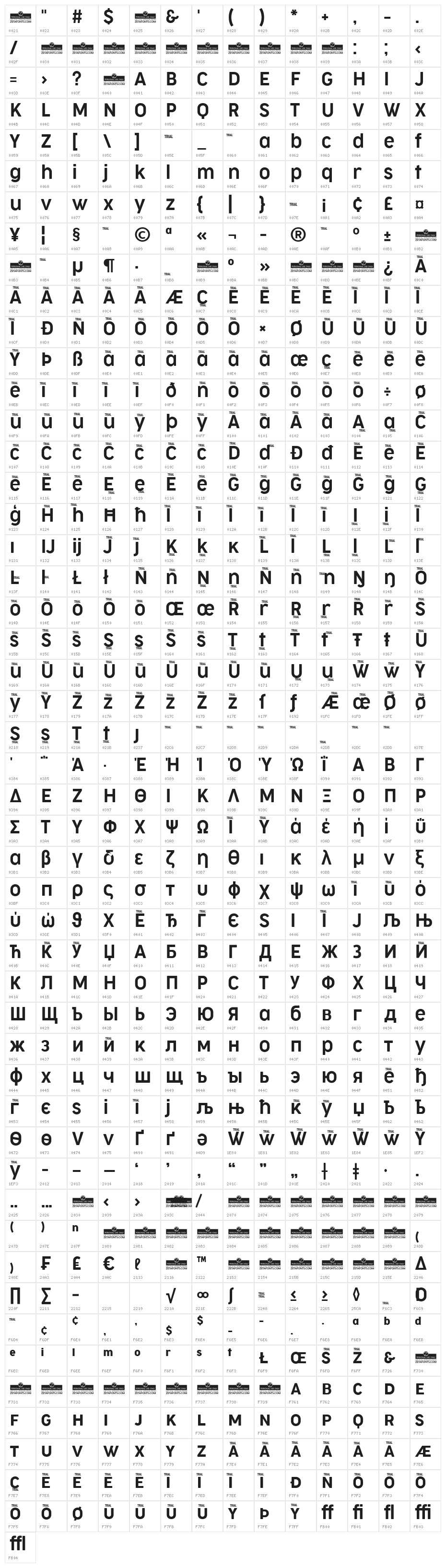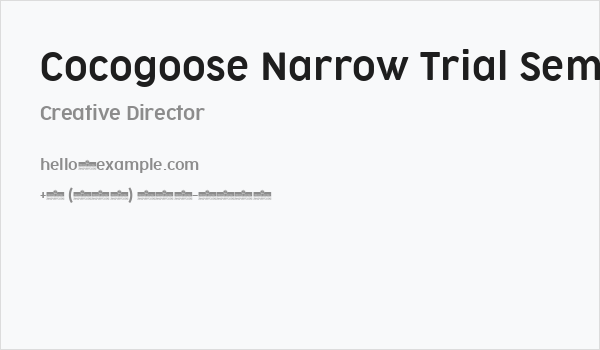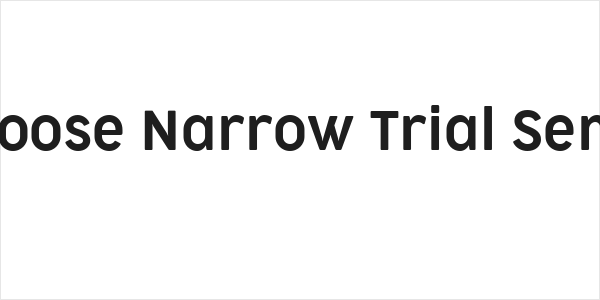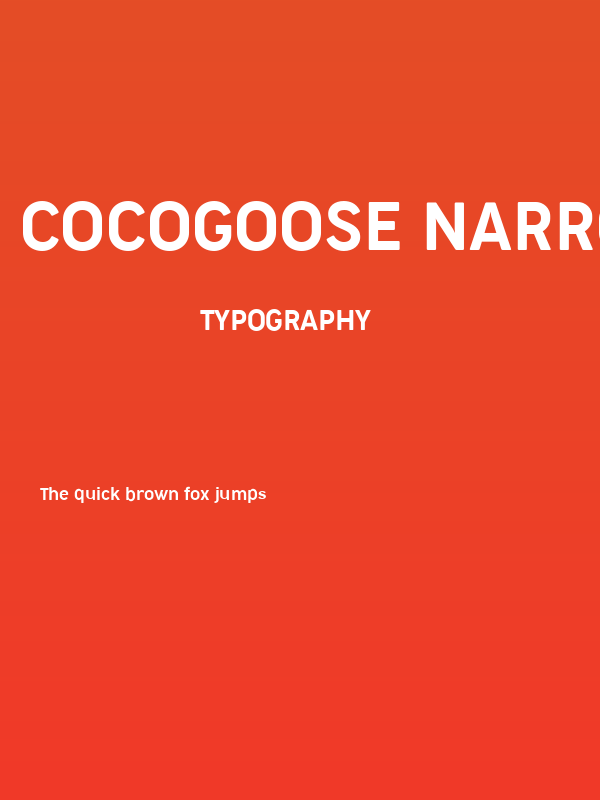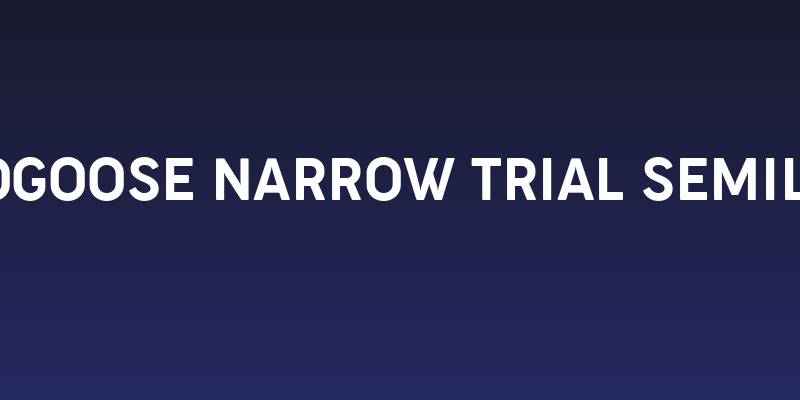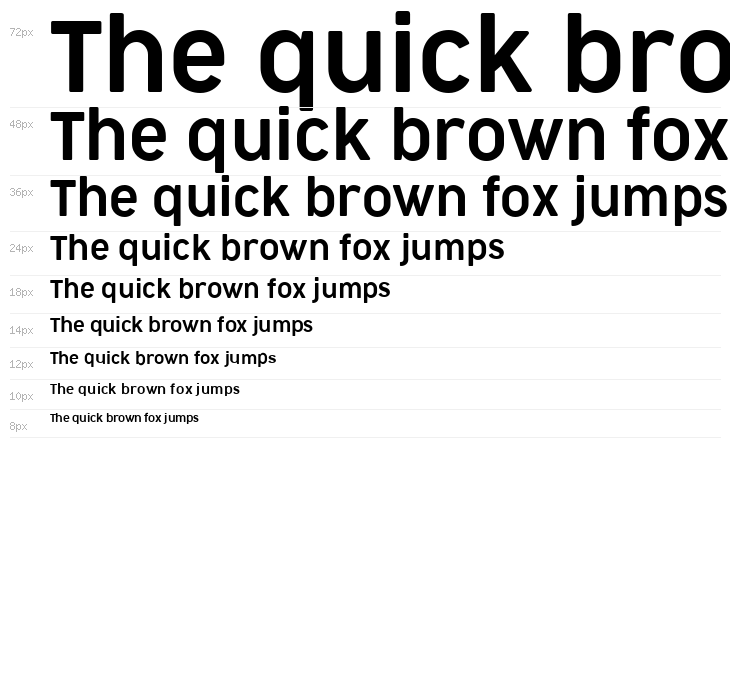
Cocogoose Narrow Trial Semilight Font
Cocogoose Narrow Trial Semilight Description
This font features a clean and modern sans-serif design with a narrow width, making it ideal for contemporary projects. The characters are well-balanced with a consistent stroke weight, providing a sleek and professional appearance. The uppercase and lowercase letters are distinct and easy to read, while the numerals and special characters maintain the font's cohesive style. The overall look is minimalistic yet impactful, suitable for various design applications.
| Proposed Projects | Ideal for branding, editorial design, web design, and advertising materials where a modern and clean aesthetic is desired. |